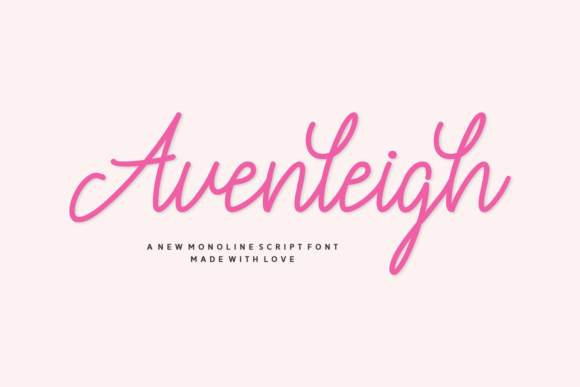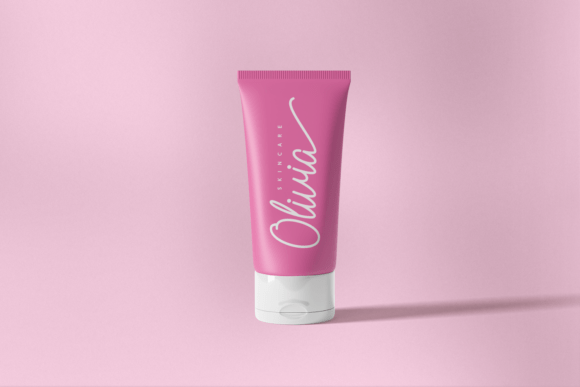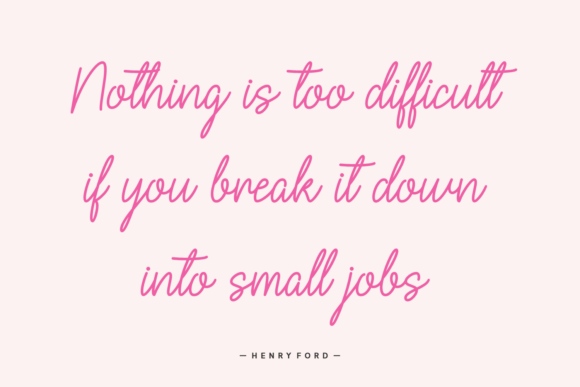
Avenleigh Font: Lovely Handwritten Script for Feminine Branding & Cricut Projects
About the Avenleigh Font
Discover the charm of Avenleigh Font. This font is a perfect blend of modern aesthetics and classic appeal. Avenleigh is a light and lovely monoline script font that captures the warmth of handwritten notes with a graceful, modern flair. Its flowing lines and gentle curves evoke a sense of sincerity and charm, making it ideal for baby designs, branding, love letters, social posts, and feminine packaging. With its clean monoline structure and just the right amount of bounce, Avenleigh brings a personal, “made with love” touch to any design project.
Avenleigh’s delicate nature makes it perfect for projects requiring a touch of elegance and warmth, such as wedding invitations, greeting cards, or feminine branding. It excels in short text applications like logos, headlines, and short quotes where its graceful curves shine. However, its light weight and script style limit its readability in body text or UI elements. Avoid using it for large blocks of text.
Pairing Avenleigh effectively requires consideration of its script style. A clean sans-serif like Lato or Montserrat would provide a strong contrast and excellent readability for supporting text. For a more playful feel, a rounded geometric sans-serif such as Nunito might be a good choice. Alternatively, a subtle serif like Playfair Display could add a touch of classic sophistication.
Avenleigh possesses a soft, friendly, and romantic personality. Brands focused on handcrafted goods, beauty products, or events that emphasize love and personal connection would find this font particularly suitable. Its overall mood is gentle and approachable, making it unsuitable for projects requiring a bold or assertive presence.
Avenleigh Font Usage Examples
Avenleigh Font Example